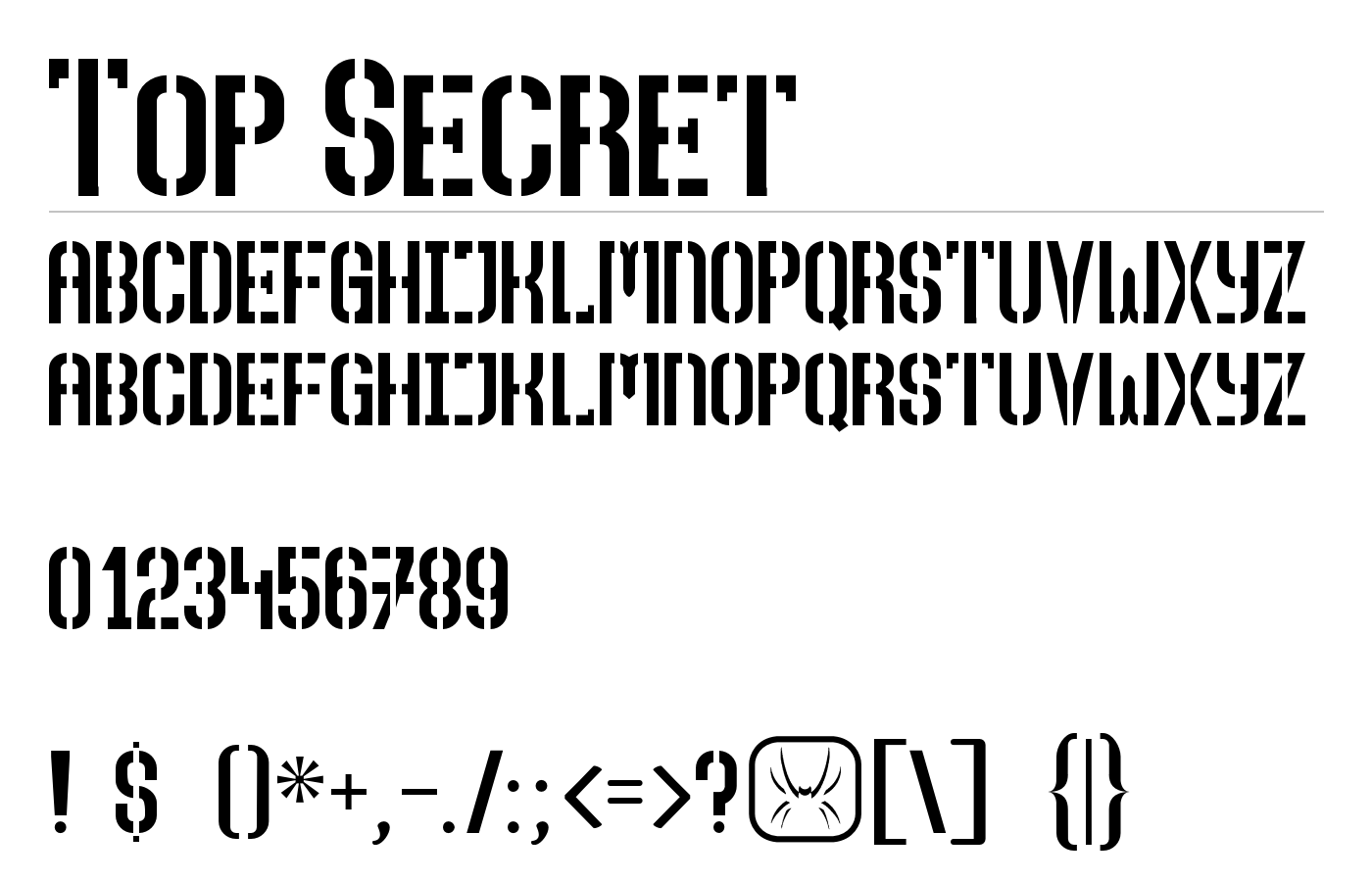
The [TOP_SECRET] font is a bold, condensed stencil-style typeface with a strong industrial and military feel. Its sharp, geometric letterforms feature high contrast breaks within each character, creating a distinctive, utilitarian look perfect for conveying secrecy, authority, or ruggedness. This font works best for impactful headlines, logos, and branding where a bold statement with a hint of mystery or vintage stencil appeal is desired.
[TOP_SECRET] Font
About [TOP_SECRET] Font